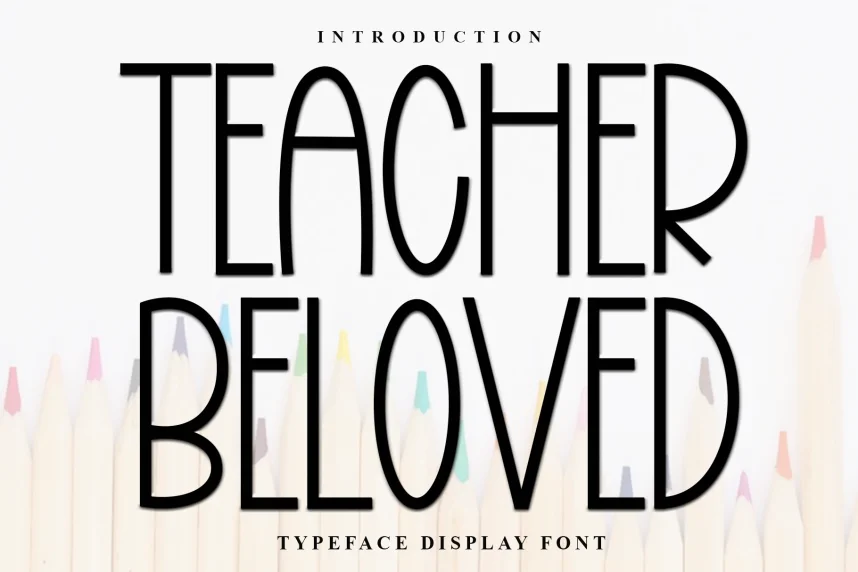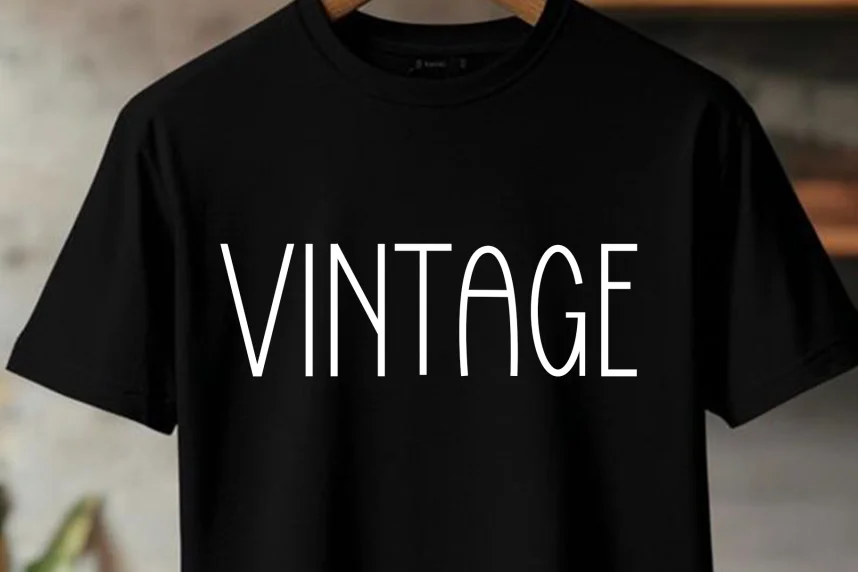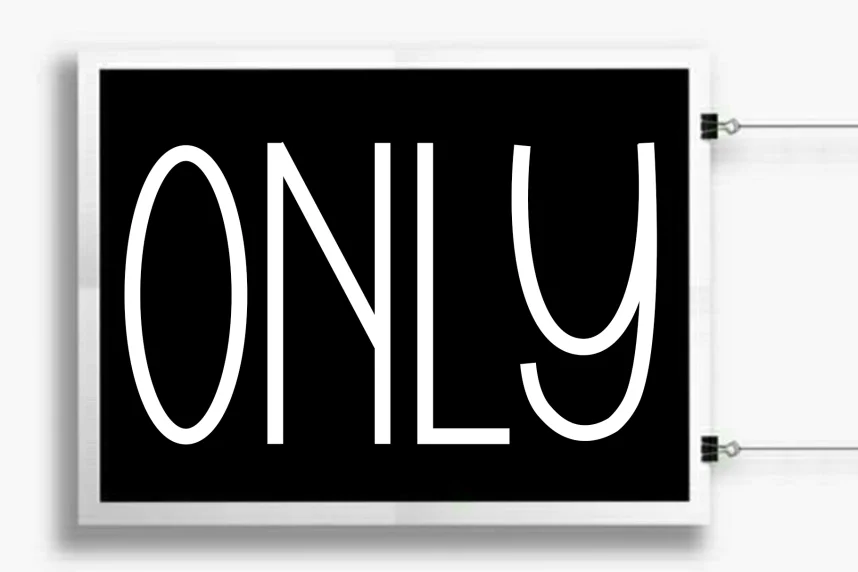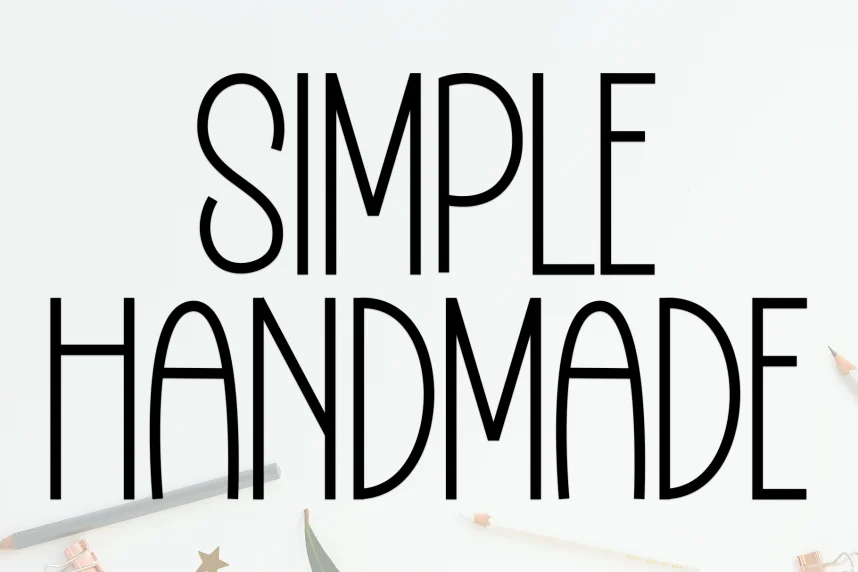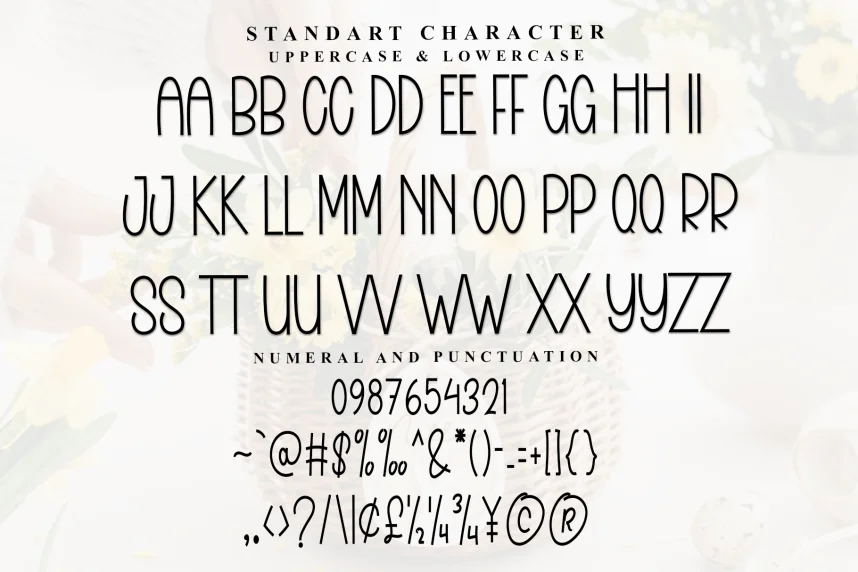
Teacher Beloved Playful Font addresses the challenge of creating an engaging, friendly font for educational and creative content. Designers often need a playful yet legible typeface for materials aimed at children or youth audiences.
Teacher Beloved is a playful script font with rounded letterforms, soft curves, and exaggerated swashes. The design feels approachable and fun, making it ideal for informal applications that require a personal, human touch.